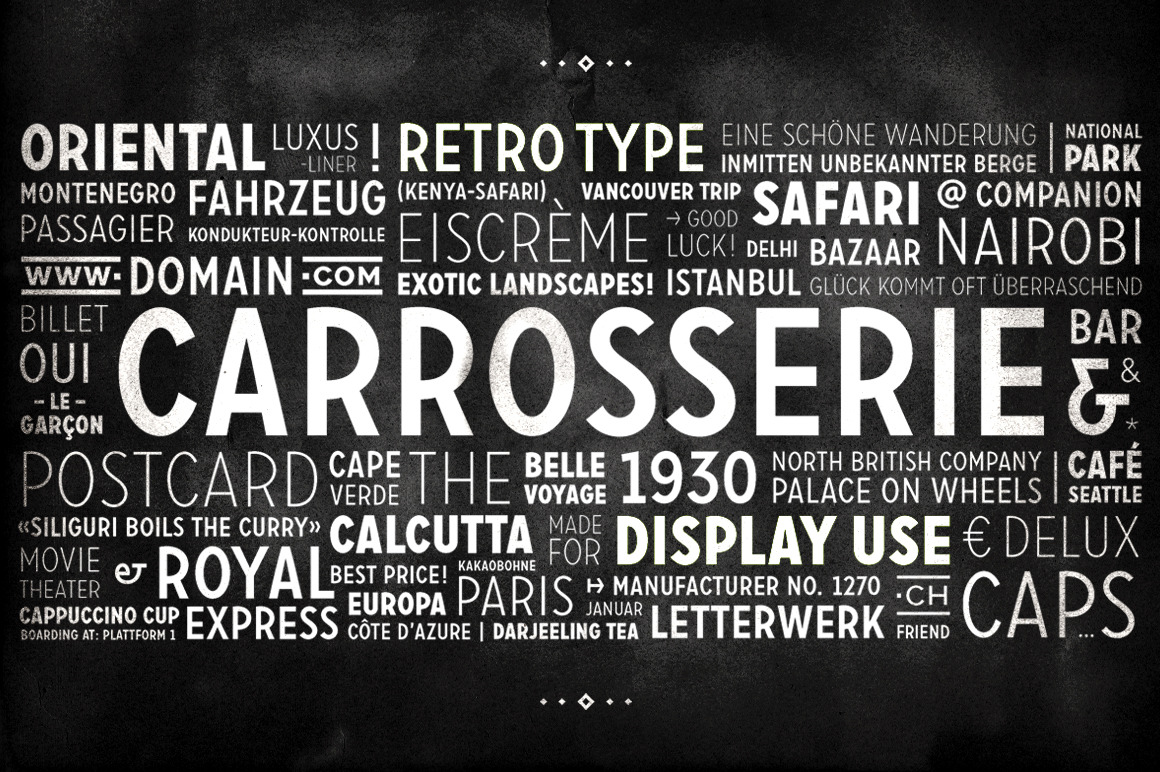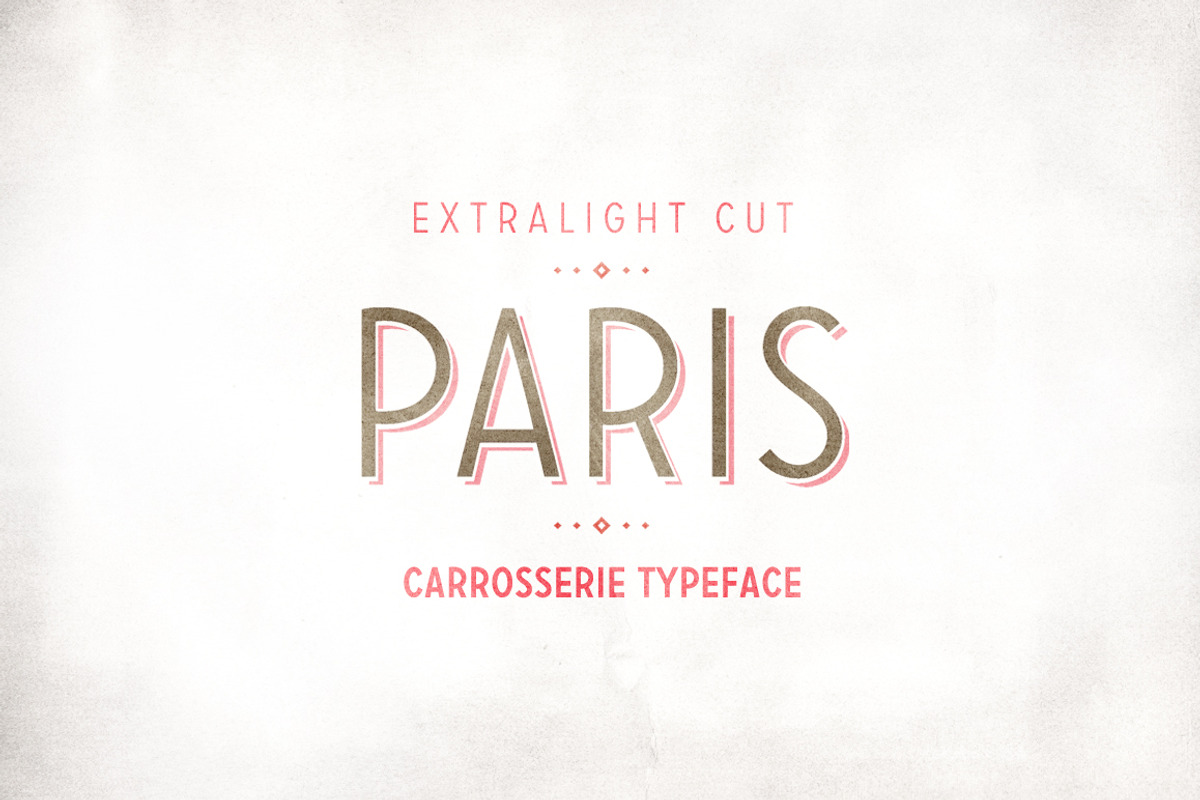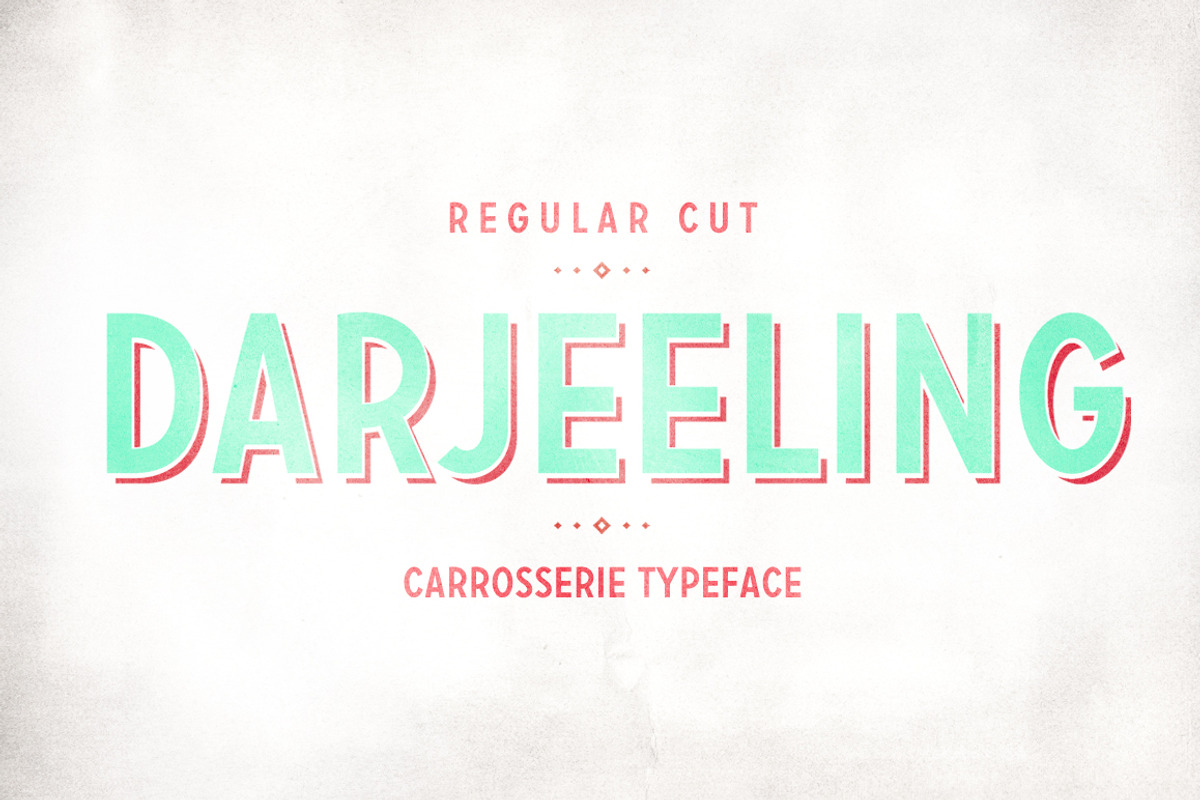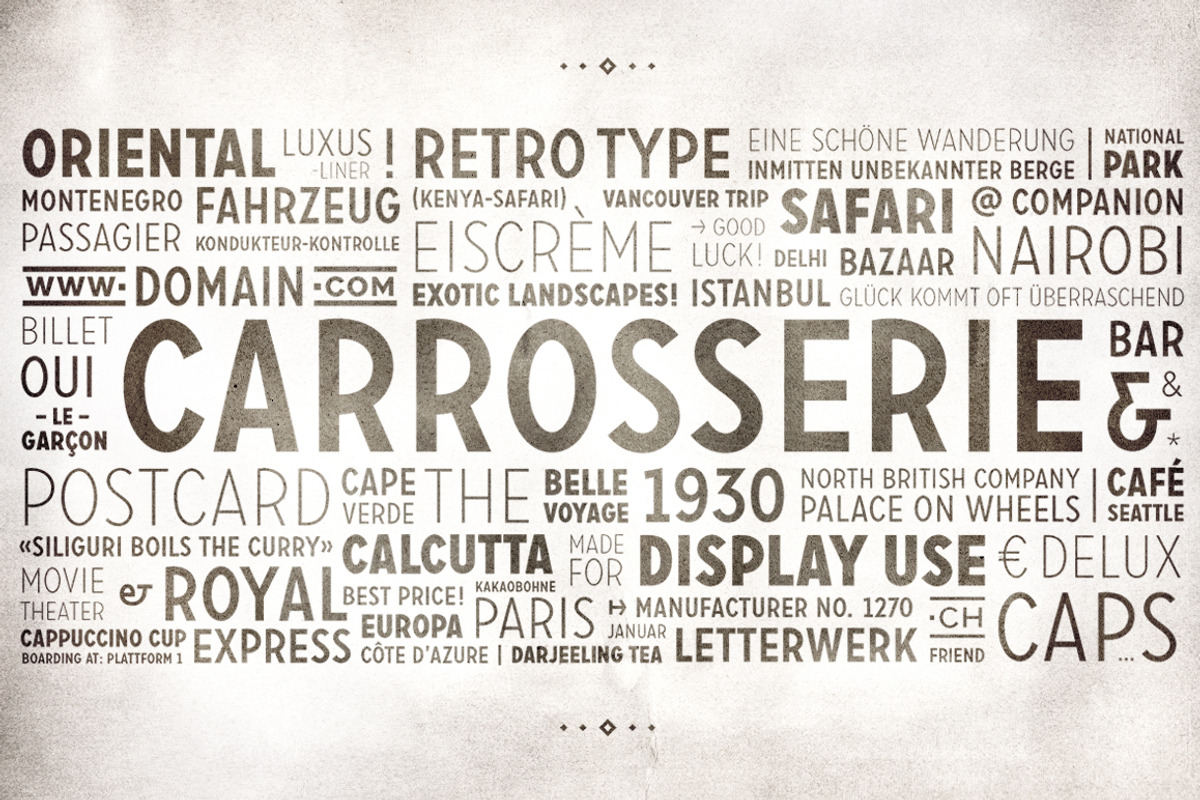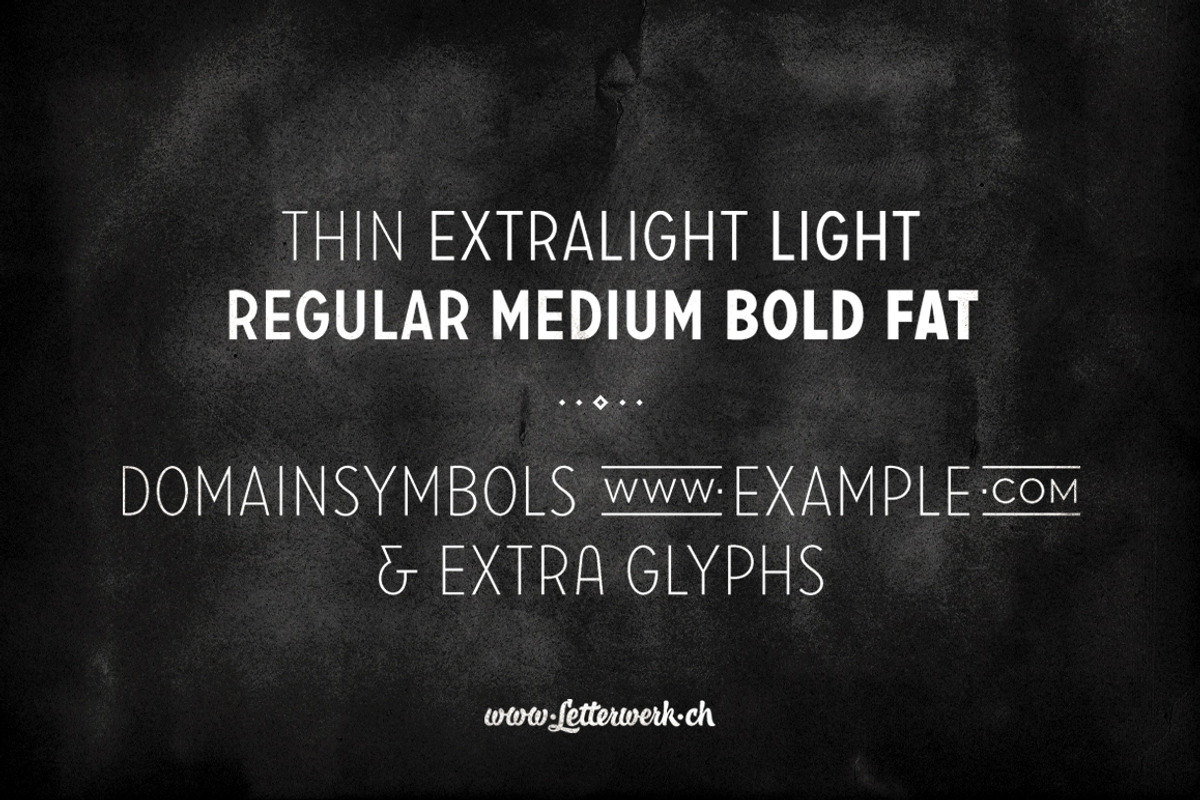
Carrosserie Typeface
Carrosserie is made for display use, inspired by the shapes of the 30’s. It is a capital letter font with alternate characters and special domain symbols. Check the PDF: http://letterwerk.ch/wp-content/uploads/2012/04/Carrosserie-CharacterSet.pdf
The font is now available in Thin, Extra-Light, Light, Regular, Medium, Bold & Fat. Enjoy!